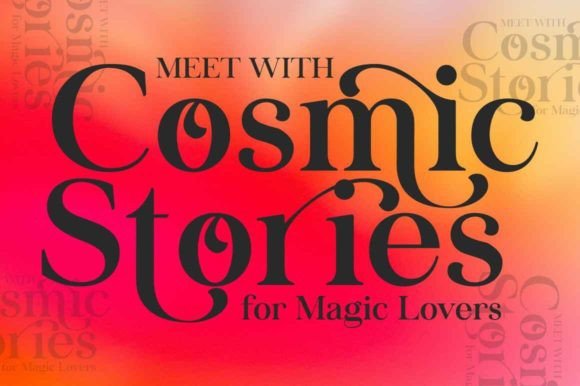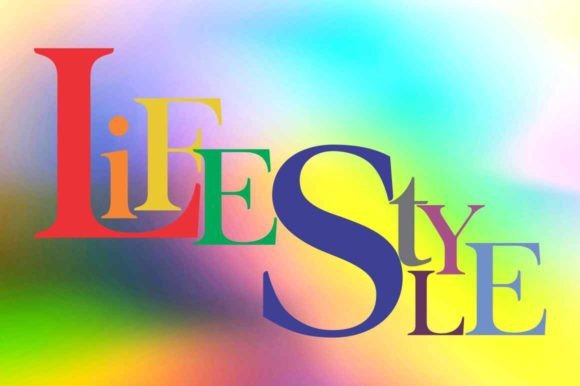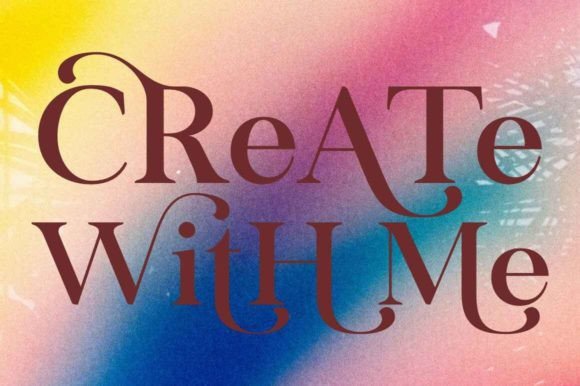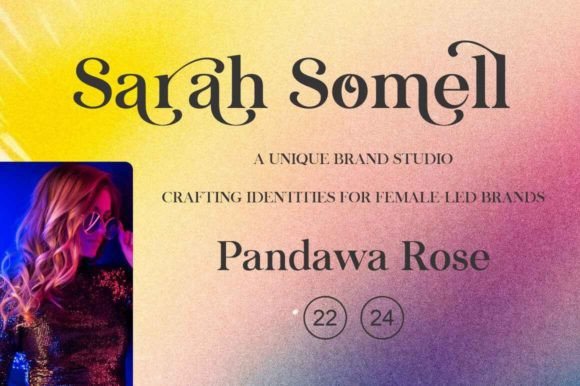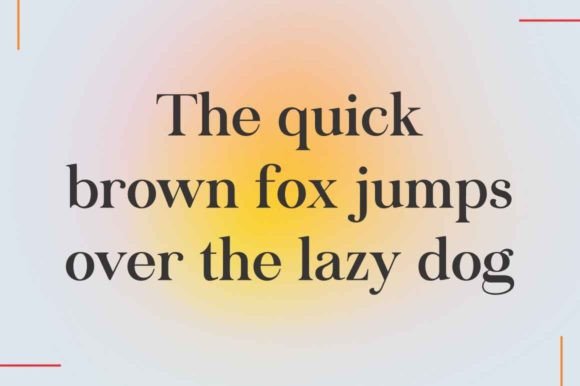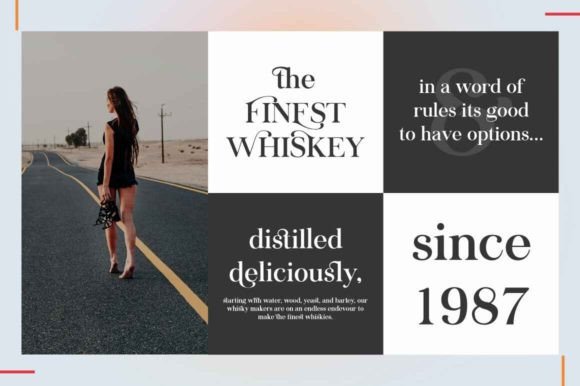
Introduction to Life Style Font
As a designer, have you ever stumbled upon a font that makes your creative project stand out from the crowd? For me, it was that moment when I discovered the Life Style Font. Its classic luxury serif design immediately caught my eye, and I knew I had to learn more about it. With its high-quality aesthetic and timeless charm, Life Style Font is the perfect design resource for anyone looking to elevate their work.
Whether you’re working on a premium brand, a wedding invitation, or a product packaging design, Life Style Font is sure to add a touch of sophistication and elegance to your project. One of the best things about this font is its versatility – it can be used for a wide range of creative projects, from social media posts to product designs. And the best part? It’s available for free download, complete with a transparent background, making it easy to incorporate into your designs.
In this article, we’ll dive deeper into the world of Life Style Font and explore its many benefits for designers. Whether you’re a seasoned pro or just starting out, you won’t want to miss this in-depth look at one of the most valuable design resources available today.
Key Features of Life Style Font
- High-quality design resource for creative projects, ideal for digital and print media.
- Unique, handcrafted design with a modern aesthetic, setting it apart from other fonts in its class.
Honest Review: Life Style Font
I recently had the chance to work with the Life Style Font, and I must say it’s been a valuable addition to my design resource library. This font is perfect for any creative project that requires a modern and stylish look.
- ✨ High-quality design that’s crisp and clear on any device.
- ⚠️ Limited font styles available, which may not be ideal for complex design projects.
- ⚠️ Some users may find the font a bit too minimalist, which may not be suitable for all design styles.
Overall, I’m impressed with the Life Style Font. It’s a great resource for designers looking for a high-quality, modern font. While it may not be suitable for every project, it’s definitely worth considering for any creative endeavor that requires a stylish and professional look.
Tips for Getting the Most Out of Life Style Font
To get the most out of Life Style Font, use it in conjunction with other design elements to create a cohesive and visually appealing design. Experiment with different font sizes, colors, and arrangements to find the perfect look for your project.
Life Style Font is commonly used in a variety of creative projects, including logos, brochures, business cards, and social media graphics. Its high-quality design and transparent background make it a versatile and useful design resource.